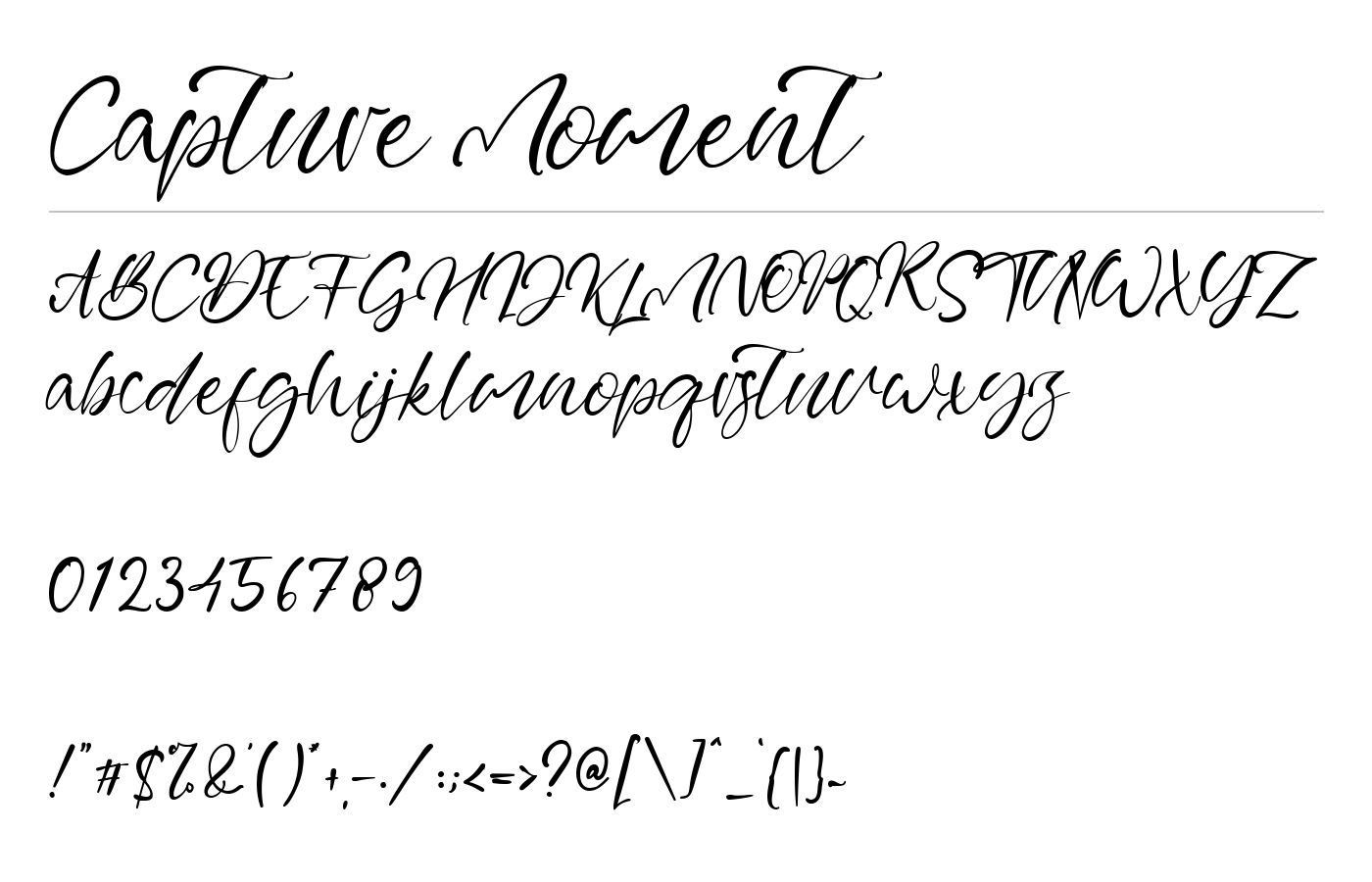
Capture Moment Font is an elegant and flowing script typeface with a lively, hand-lettered feel. Its smooth, moderate contrast strokes and delicate, cursive letterforms convey a sense of warmth and personal touch, making it ideal for invitations, branding, and feminine or romantic designs. This font shines in creative projects that seek a stylish yet approachable aesthetic.
Capture Moment Font
About Capture Moment Font
| Font family | Capture Moment Font |